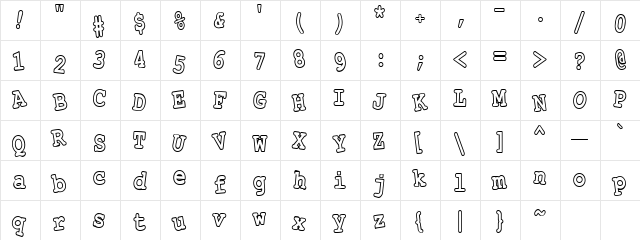
CK Tomfoolery Regular
Design Context for CK Tomfoolery Typeface
CK Tomfoolery is a composed and adaptable typeface that performs quietly and consistently across a wide range of design contexts.